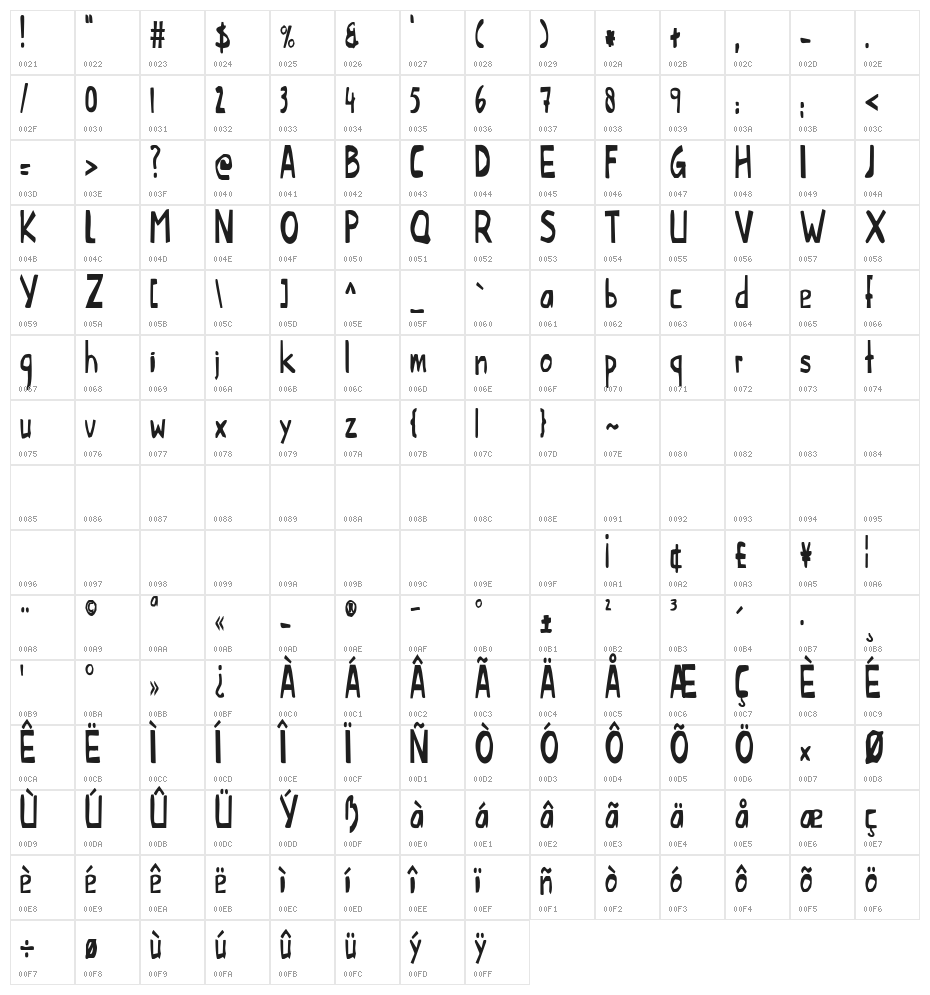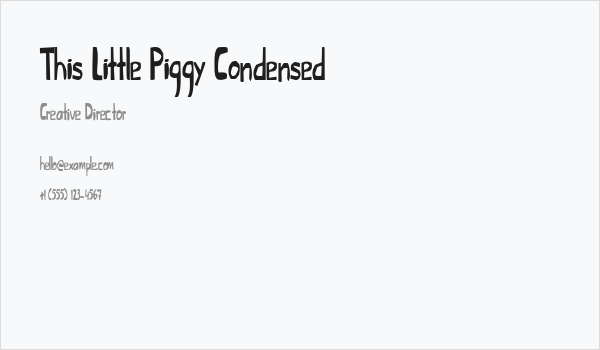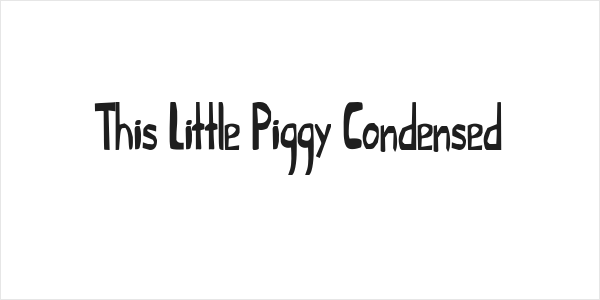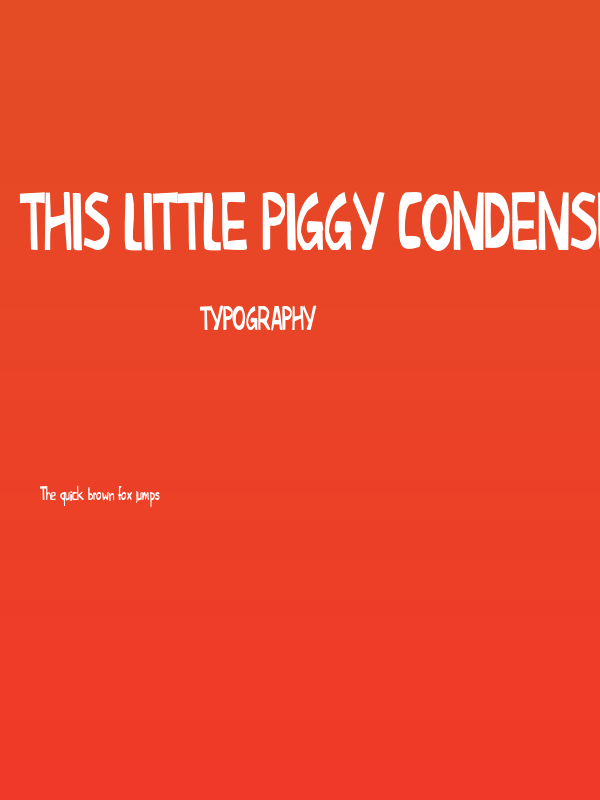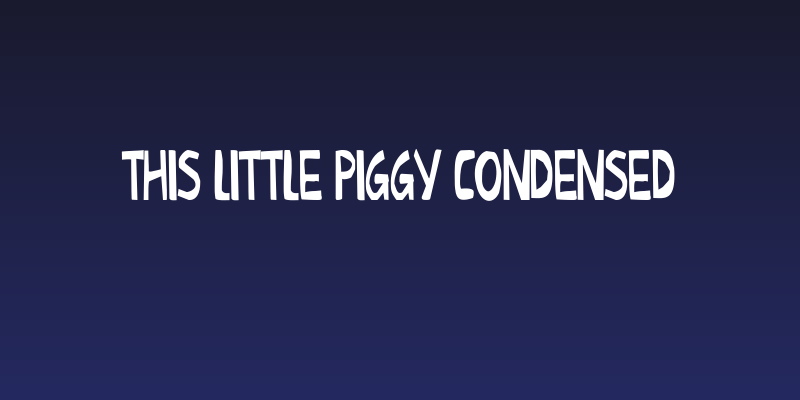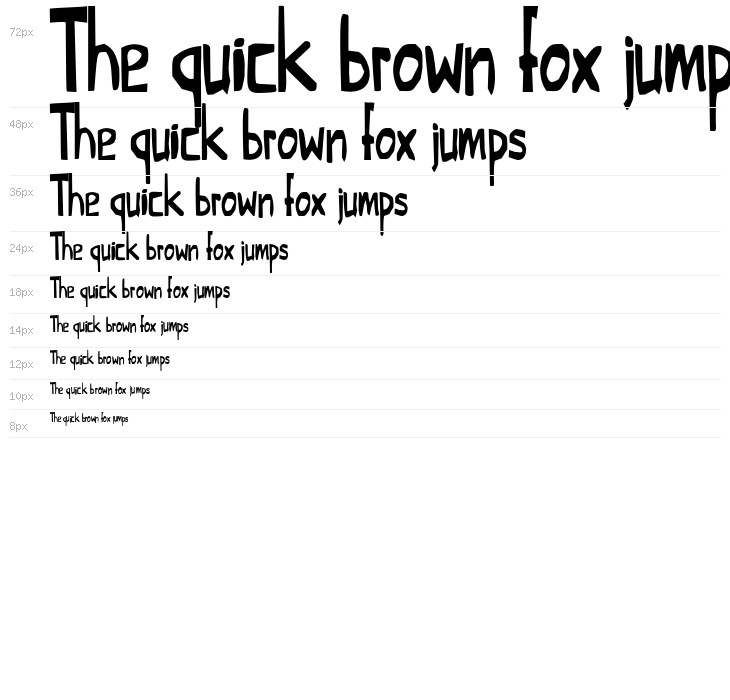
This Little Piggy Condensed Font
This Little Piggy Condensed Description
This font features a playful and quirky design with a condensed structure. The characters exhibit a hand-drawn, uneven quality, giving it a whimsical and informal appearance. The uppercase letters are bold and slightly irregular, while the lowercase letters maintain a consistent style with a touch of asymmetry. Numbers and special characters follow the same playful theme, making the font suitable for creative and lighthearted projects. The overall look is unique and eye-catching, perfect for adding a fun element to any design.
| Overall Style | Playful, Quirky, Hand-drawn |